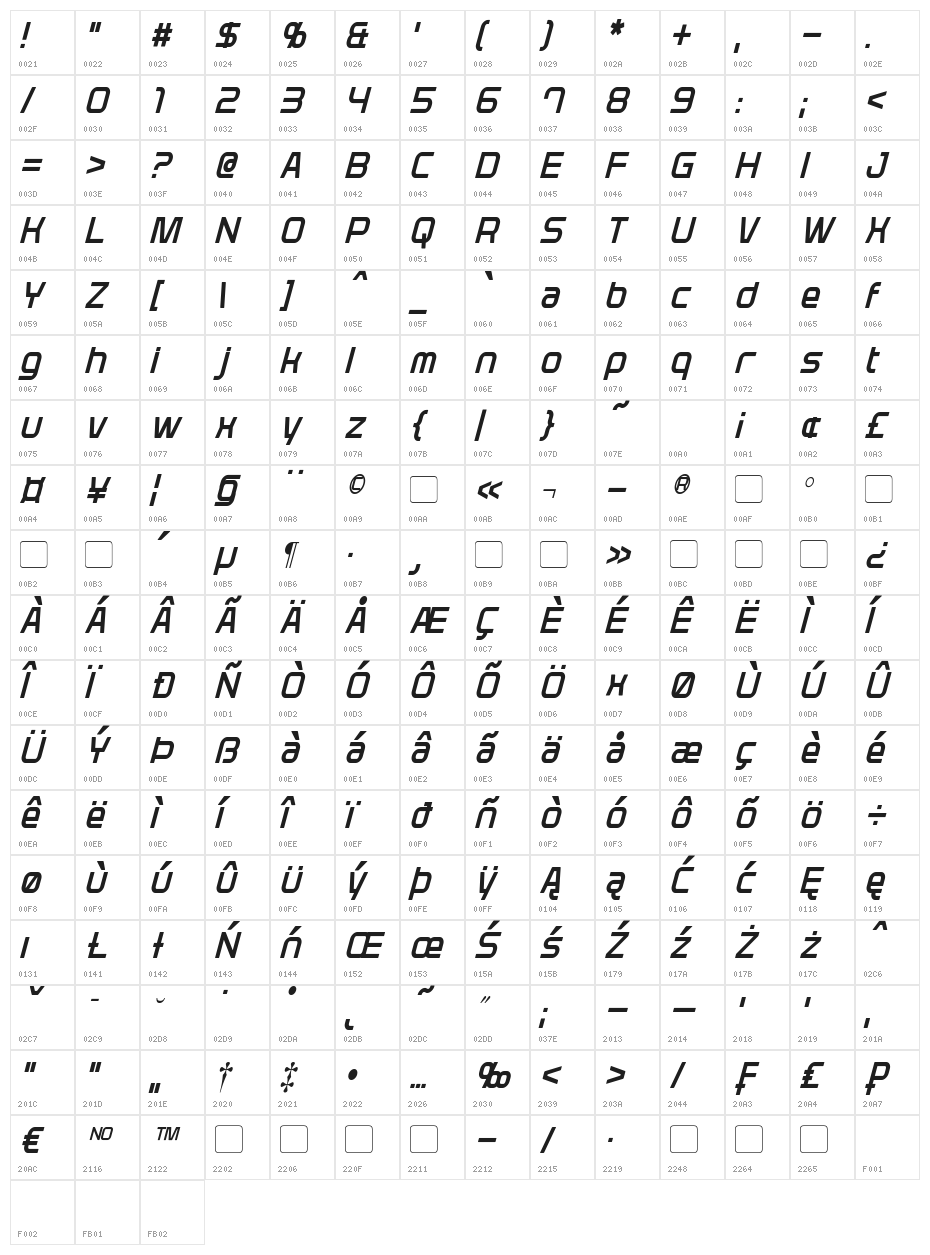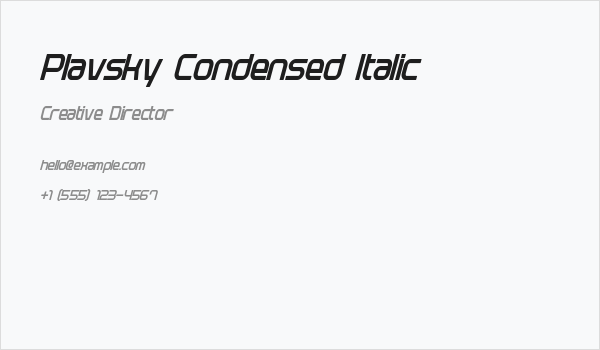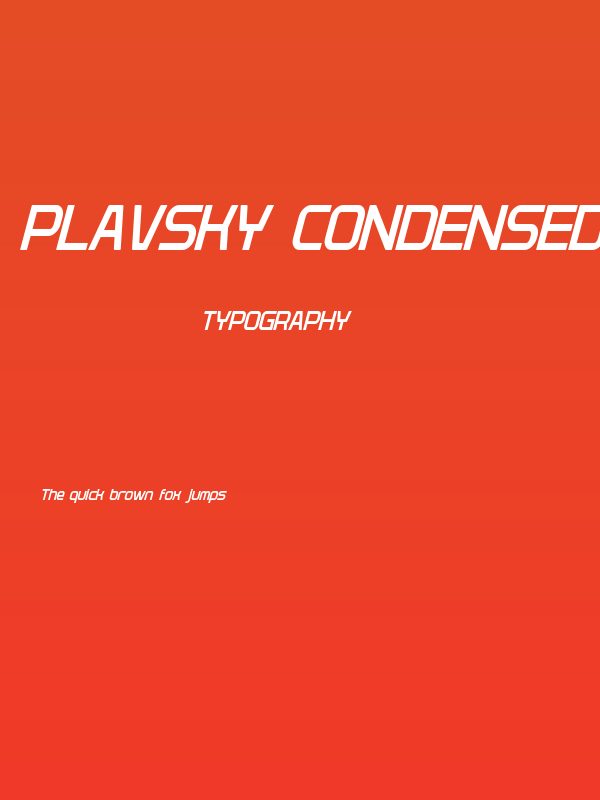
Plavsky Condensed Italic Font
Plavsky Condensed Italic Description
This font features a sleek, modern design with a condensed and italicized style. The characters are elongated and slightly slanted, giving a sense of motion and dynamism. The strokes are consistent in weight, providing a uniform appearance across all characters. The uppercase and lowercase letters maintain a cohesive look, with rounded edges and a clean finish. The numerals and special characters are designed to match the overall aesthetic, ensuring readability and style. This font is ideal for projects that require a contemporary and professional look.
| Proposed Projects | Ideal for branding, advertising, and editorial design where a modern and dynamic appearance is desired. |